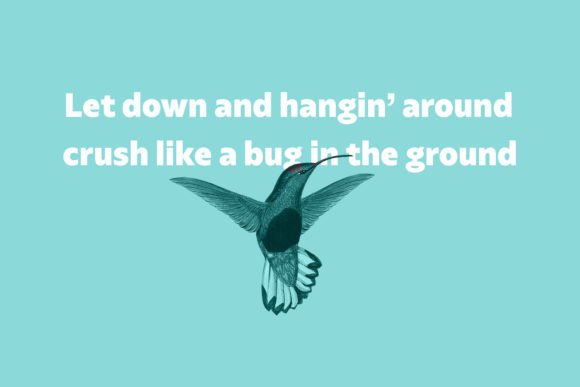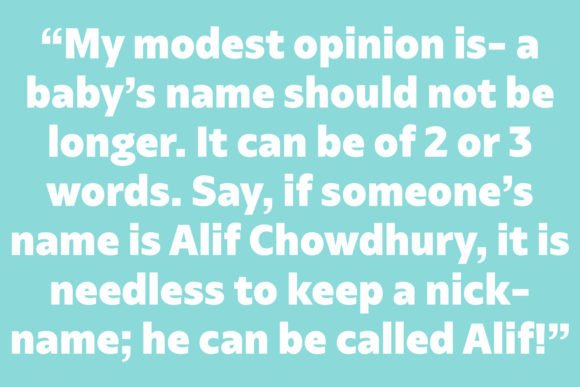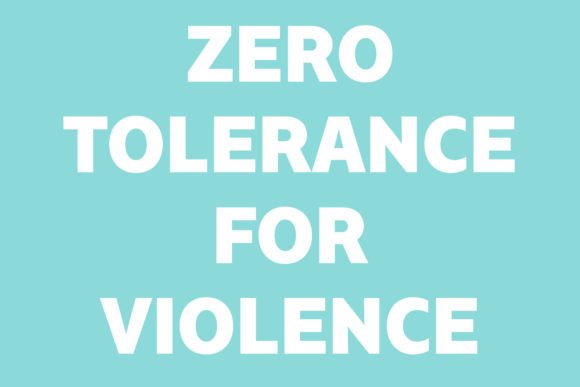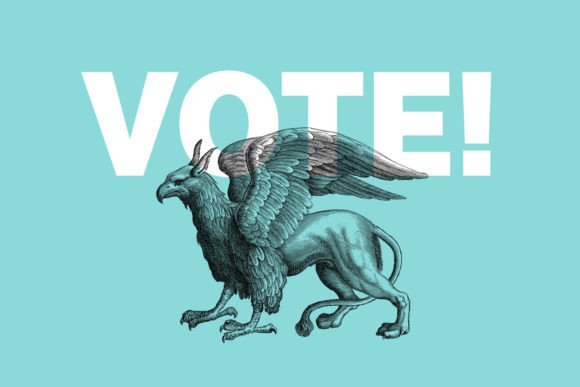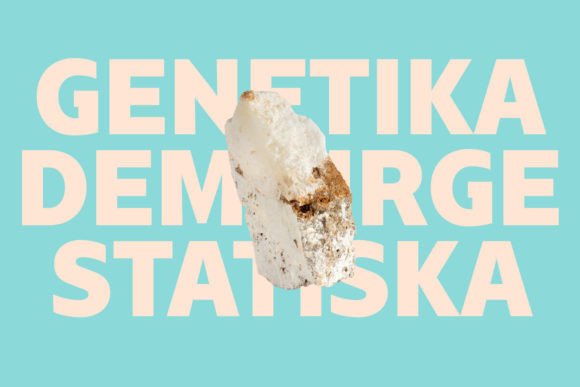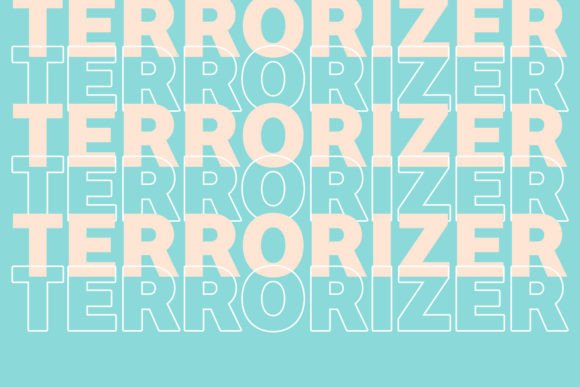
Do you remember that moment when you saw a font that just clicked with your design idea? Maybe it was the subtle curves, the perfect balance of contrast, or the quirky character that brought your concept to life. For designers, finding the right font can be the difference between a good design and a great one.
Enter Gogat Font, a semi-geometric sans serif font designed to bring creativity and versatility to your work. With its medium low contrast stroke and fun character, Gogat Font is perfect for logo design, social media, movie titles, book titles, and even long text. Its unique ligatures and alternates give you the freedom to experiment and push the boundaries of your design.
Whether you’re a seasoned designer or just starting out, Gogat Font is a valuable addition to your toolkit. Its simplicity and flexibility make it a great choice for secondary text, pairing well with both sans and serif fonts. So why settle for an ordinary font when you can make stunning work with Gogat Font?
Gogat Font Key Features
- Unique Characteristics: Gogat Font features a unique blend of modern and traditional design elements, with intricate details and subtle nuances that set it apart from other fonts.
- Weight and Style: Gogat Font is available in multiple weights, from Light to Extra Bold, and various styles, including Regular, Italic, and Bold Italic, providing flexibility for use in different contexts.
Gogat Font Review
Overall, I had a decent experience with the Gogat font. There are some things that work well, but also some limitations that may not make it the perfect choice for every designer.
- Unique design: The Gogat font has a distinct and quirky design that can add a touch of personality to any project.
- Legibility: Despite its unusual design, the font is surprisingly legible, making it suitable for body text.
- Wide language support: The font includes a wide range of languages, making it a good choice for global projects.
- Headline limitations: The font’s design may not be ideal for headlines, as it can be difficult to read in larger sizes.
- Lack of bold weight: The font’s bold weight is not as strong as some other fonts, which may make it less suitable for emphasis.
- Some letterforms may be confusing: Certain letterforms, such as the ‘i’ and ‘l’, can be easily confused with one another.
Overall, I would say that the Gogat font is a decent choice for designers who want a unique and quirky font for body text or other secondary elements. However, it may not be the best choice for headlines or projects where emphasis is key.
Tips for Getting the Most Out of Gogat Font
For optimal results, use Gogat Font in conjunction with bold or italic styles to add emphasis.
Experiment with different font sizes and colors to create visual interest.
Gogat Font is ideal for creative projects, such as:
Marketing materials
Graphic designs
Logo designs